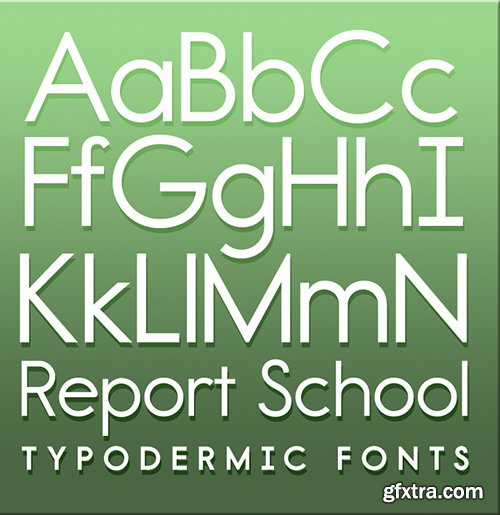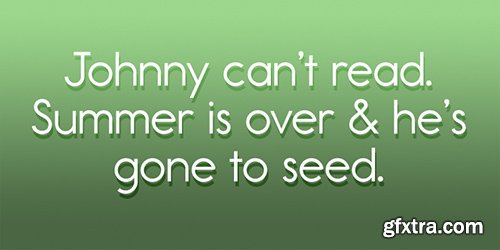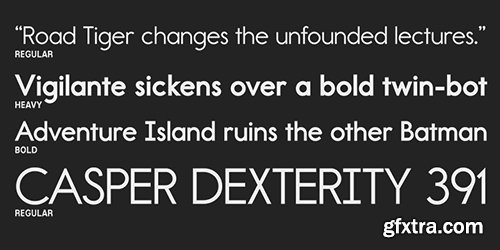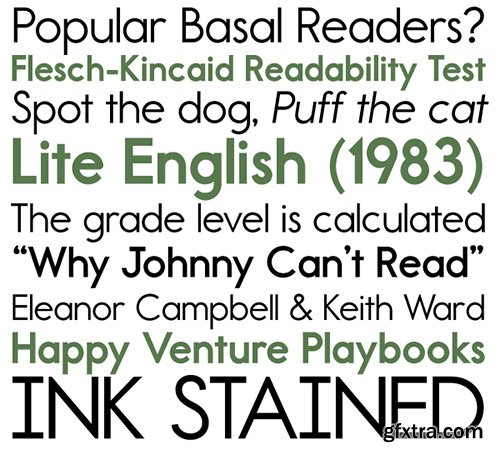
Report School is a geometric sans-serif font custom designed for education.
You can almost hear the hum of the fluorescent lights and those special clocks made only for schools which run slightly slower than regular clocks.
Numerals are tabular (vertically aligning) for easier math equation alignment. Other tabular characters include: parentheses, brackets, bar, Omega, pi, micro, Delta, asterisk, degree, percent and all math operators. The infinity and @ are a bit wider than a digit. Superior and inferior numerals are not tabular.